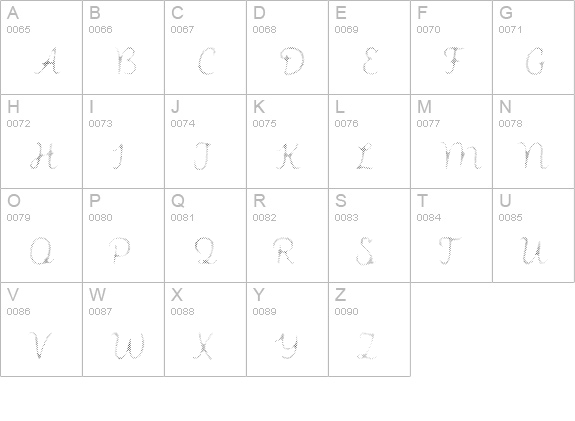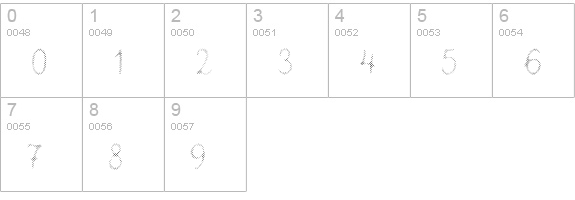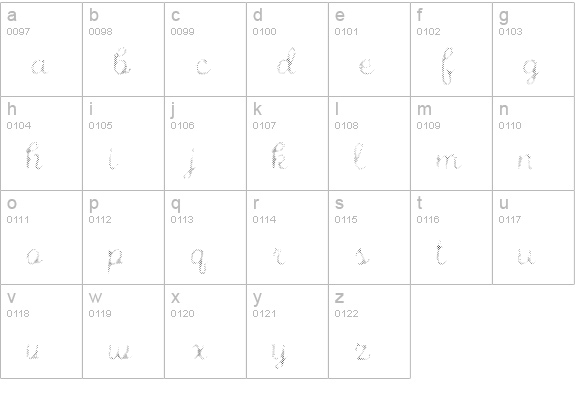
Intro Script B H1 Font Details
Intro Script B H1 font is a stunning and elegant typeface that exudes sophistication and style. With its graceful curves and delicate strokes, this font is perfect for creating eye-catching headlines and titles that will captivate your audience. The beautiful flowing script of Intro Script B H1 adds a touch of luxury and class to any design project. Best of all, this gorgeous font is available for free download at FontsMarket.com, allowing you to enhance your creations with a touch of elegance without any cost. Elevate your designs with Intro Script B H1 font and make a lasting impression.